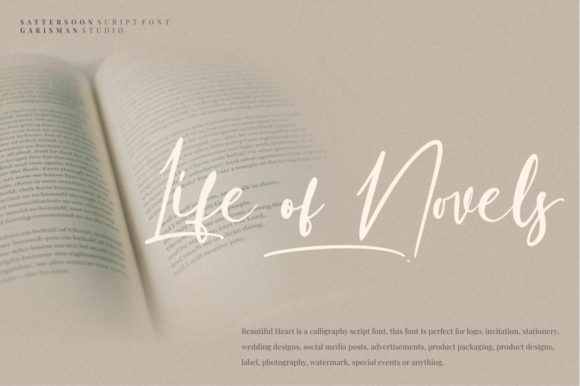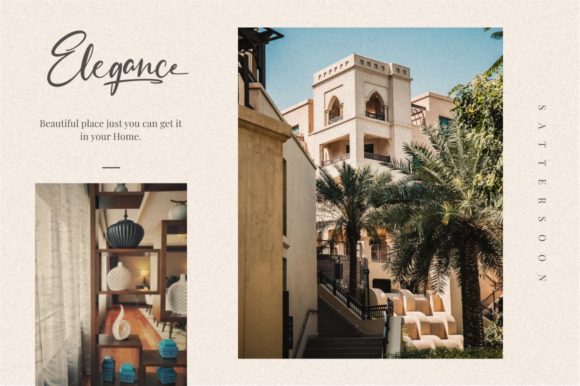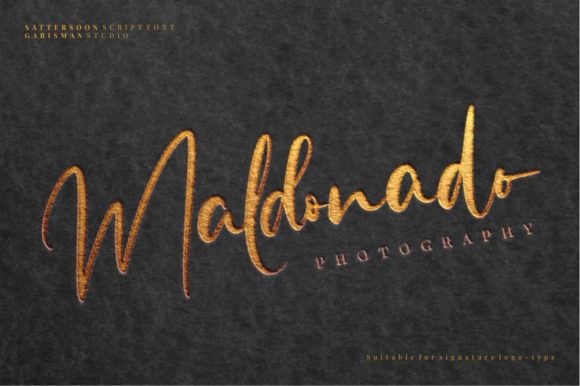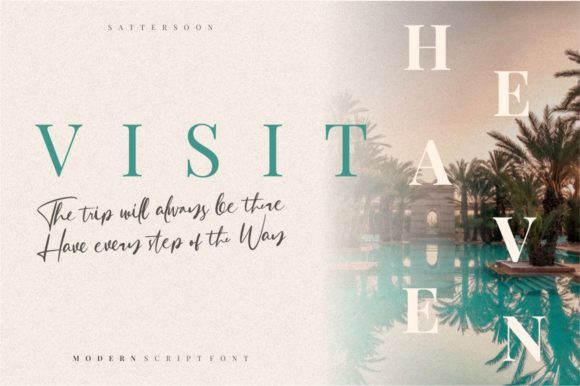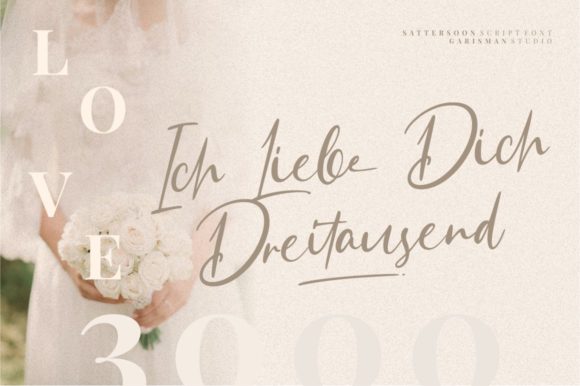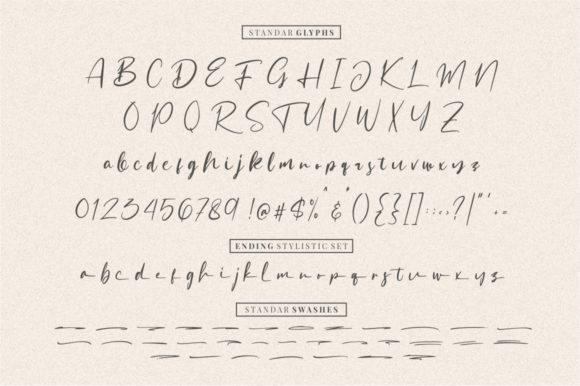
Introduction to Sattersoon Font
As a designer, you’ve probably experienced that magical moment when a project comes together, and everything feels just right. The colors, the typography, the overall vibe – it’s like a symphony of creativity. And that’s exactly what the Sattersoon Font can bring to your next project. With its naturally modern script, this high-quality font is designed to add a touch of luxury and sophistication to any design.
Whether you’re working on a branding project, a wedding invitation, or a social media campaign, the Sattersoon Font is a valuable resource for designers. Its beautiful end swashes and over 170 ligatures make it perfect for creating unique and eye-catching designs. Plus, with its transparent background, you can easily combine it with other fonts and design elements to create a cohesive look.
Key Features of Sattersoon Font
- Comes with a transparent background for easy customization
- Features a unique, hand-drawn style that adds a personal touch to designs
- Designed with a high resolution of 300 DPI for crisp and clear results
- Includes a range of characters and glyphs, making it a versatile design resource
Honest Review: Sattersoon Font
I recently came across the Sattersoon Font, a design resource that caught my attention with its high quality and unique aesthetic. As a designer, I’m always on the lookout for fonts that can elevate my creative projects, and this one definitely delivers.
What works well: ✨ The Sattersoon Font has a transparent background, making it easy to overlay on top of images and other design elements. The font itself is highly customizable, with a range of weights and styles to choose from. The free download option is also a major plus, making it accessible to designers of all levels.
- Transparent background for easy overlay
- Customizable weights and styles
However, there are a few limitations: ⚠️ The font is only available in a limited range of languages, which may be a drawback for designers working on international projects. Additionally, the font’s unique style may not be to everyone’s taste, so be sure to test it out before committing to a design project.
Overall, I’m impressed with the Sattersoon Font’s potential to elevate creative projects. While it may not be perfect, its high quality and customization options make it a valuable resource for designers looking to add some personality to their work.
Getting the Most Out of Sattersoon Font
To get the most out of the Sattersoon Font, use it in conjunction with other design elements, such as graphics and images, to create a visually appealing design. You can also experiment with different font sizes and colors to create a unique and creative project.
The Sattersoon Font is perfect for use in a variety of creative projects, including presentations, documents, and graphics. Its high-quality design and transparent background make it a great resource for designers and non-designers alike.
Yes, the Sattersoon Font includes a transparent background option, making it ideal for use in creative projects that require a seamless integration with other design elements. This feature is particularly useful when working with layered designs or complex compositions.